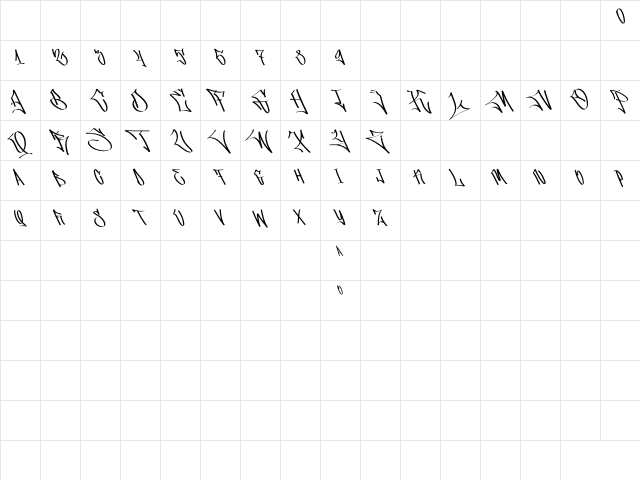
Skypilot Regular Free Font
Skypilot Regular
Foundry: Faptype
Designer: Ferry Ardana Putra
Design Context for Skypilot
Skypilot is a composed and adaptable typeface that performs quietly and consistently across a wide range of design contexts.